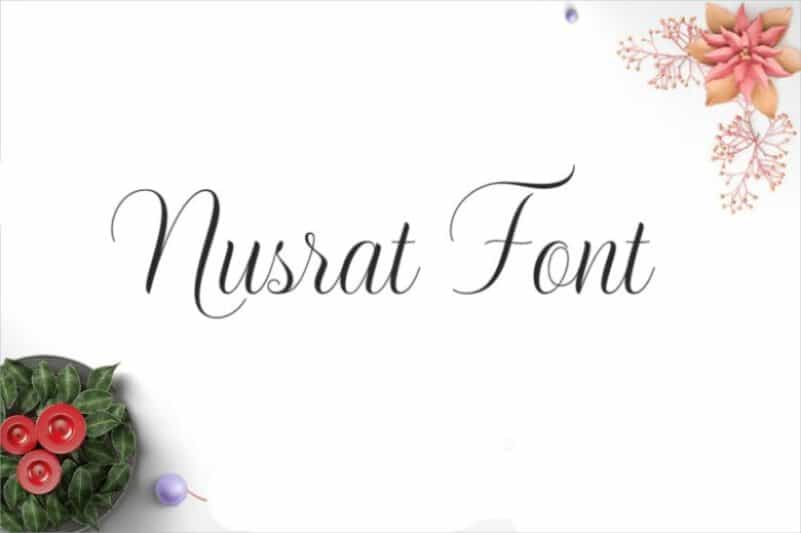
Nusrat Font is a stunning fully-featured script calligraphy font which boasts an array of different characters as well as OpenType features to give it the appearance of being handwritten by an experienced calligrapher – making Nusrat an excellent choice for creating sophisticated wedding invitations, contemporary websites, greeting cards and so forth!